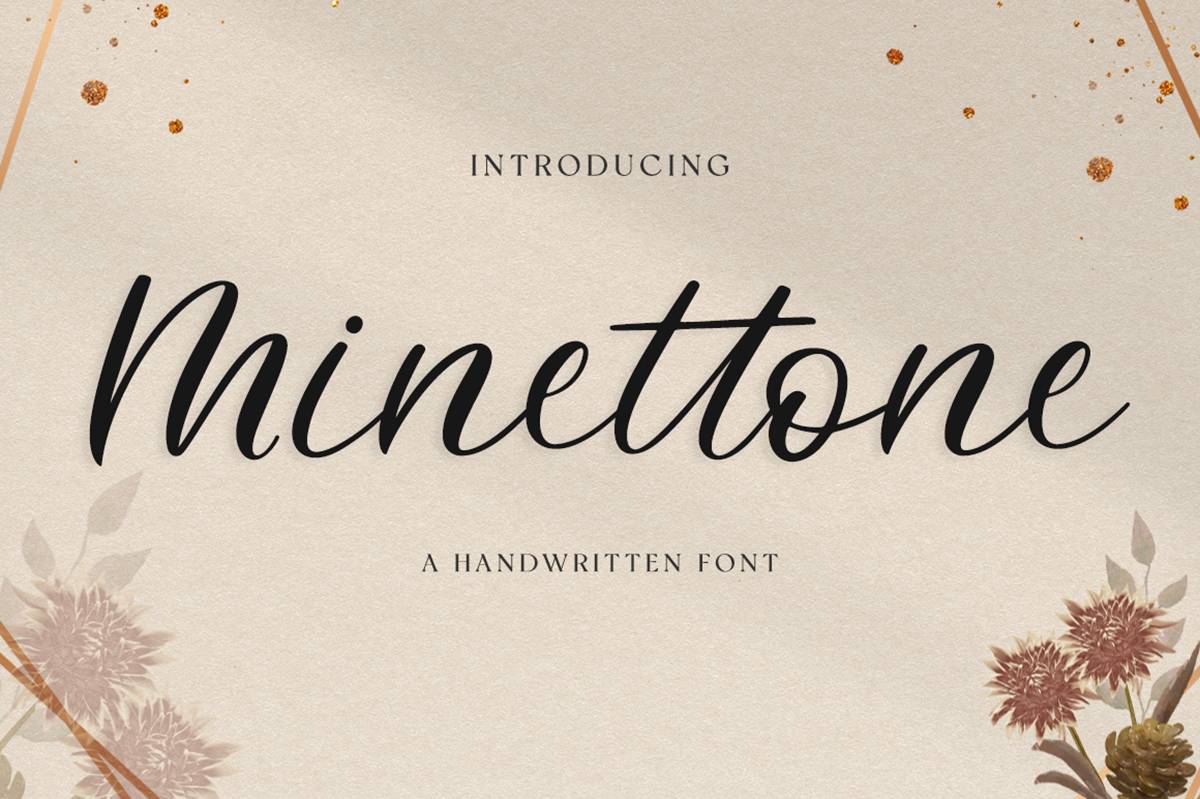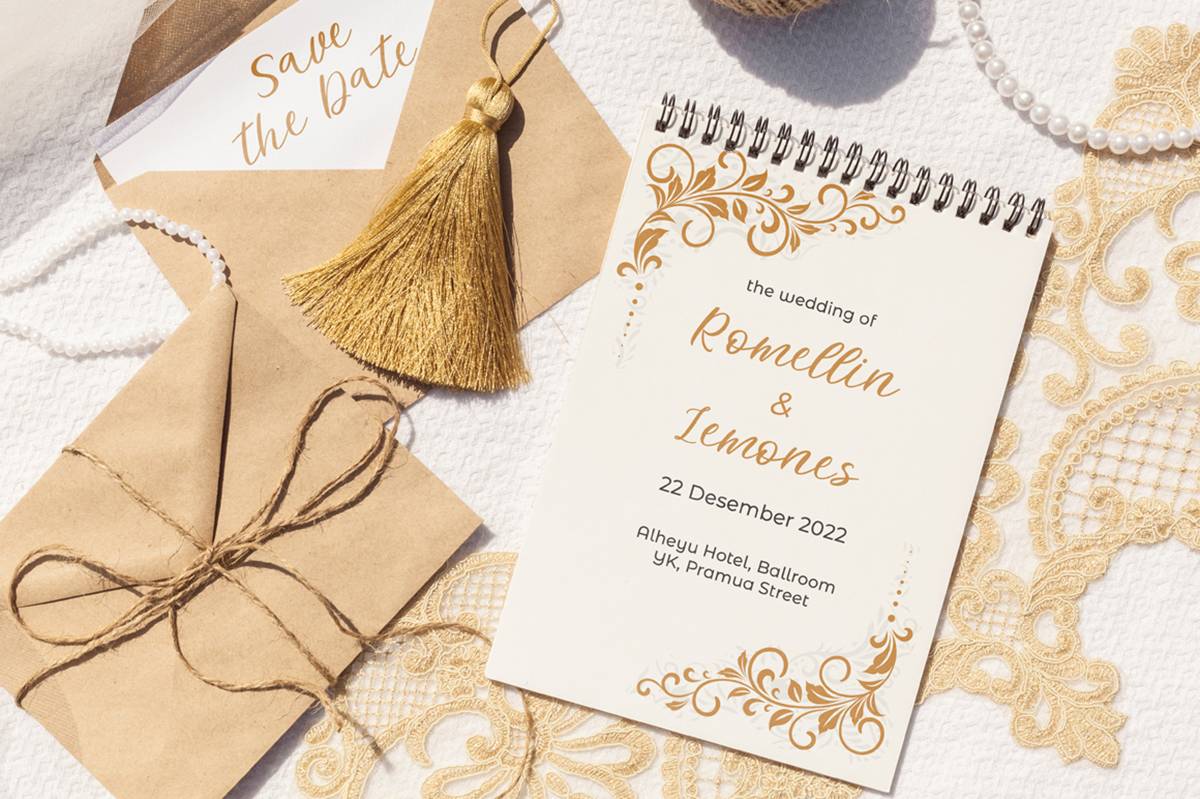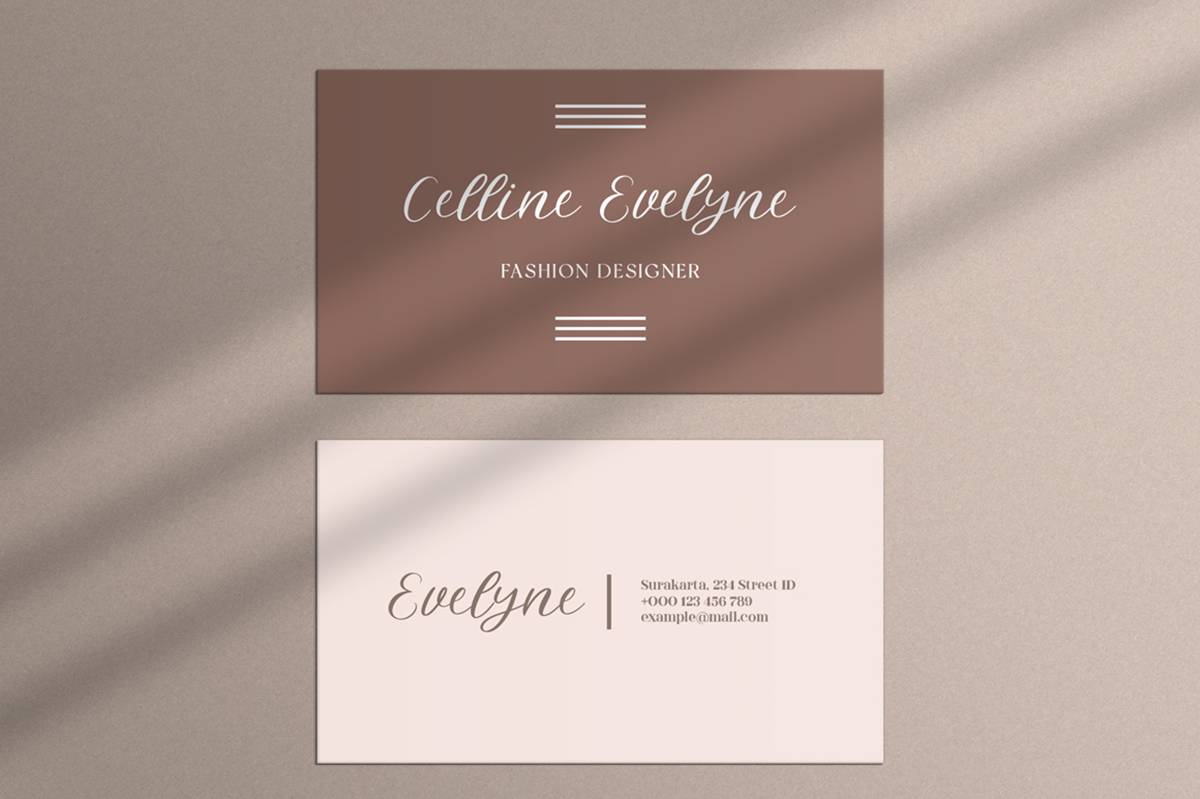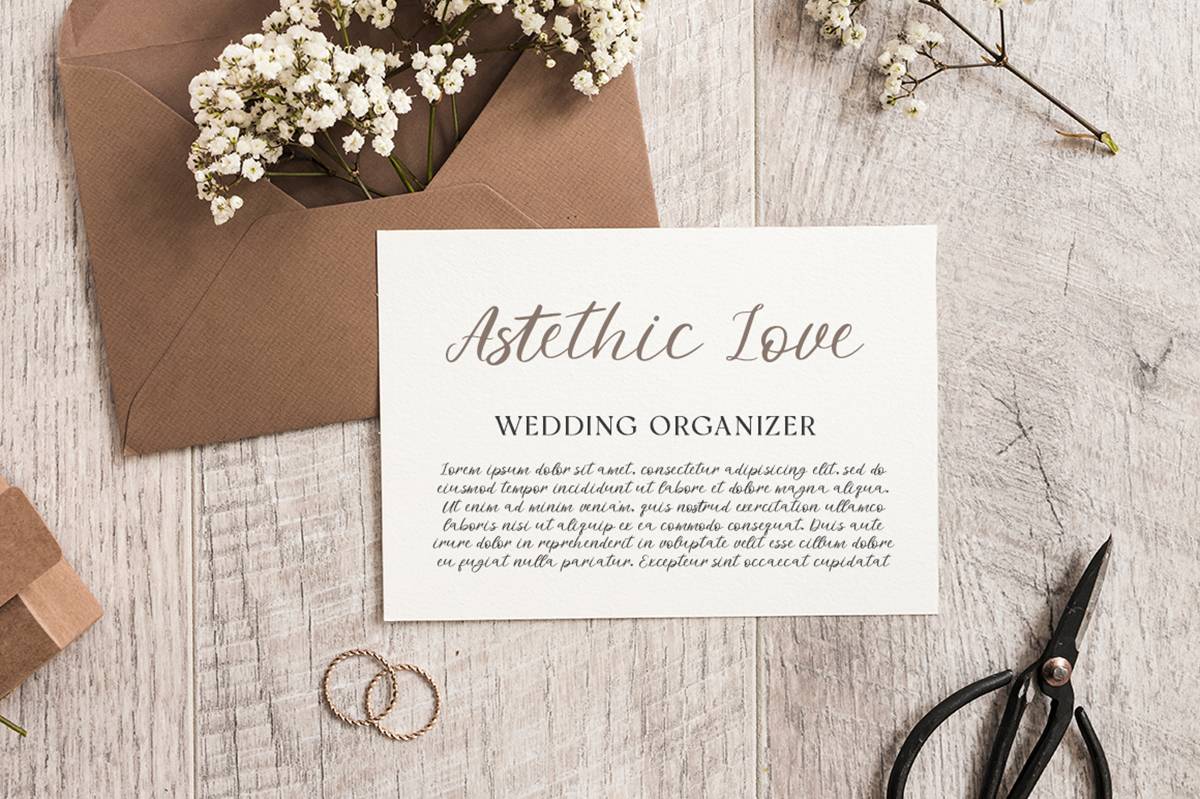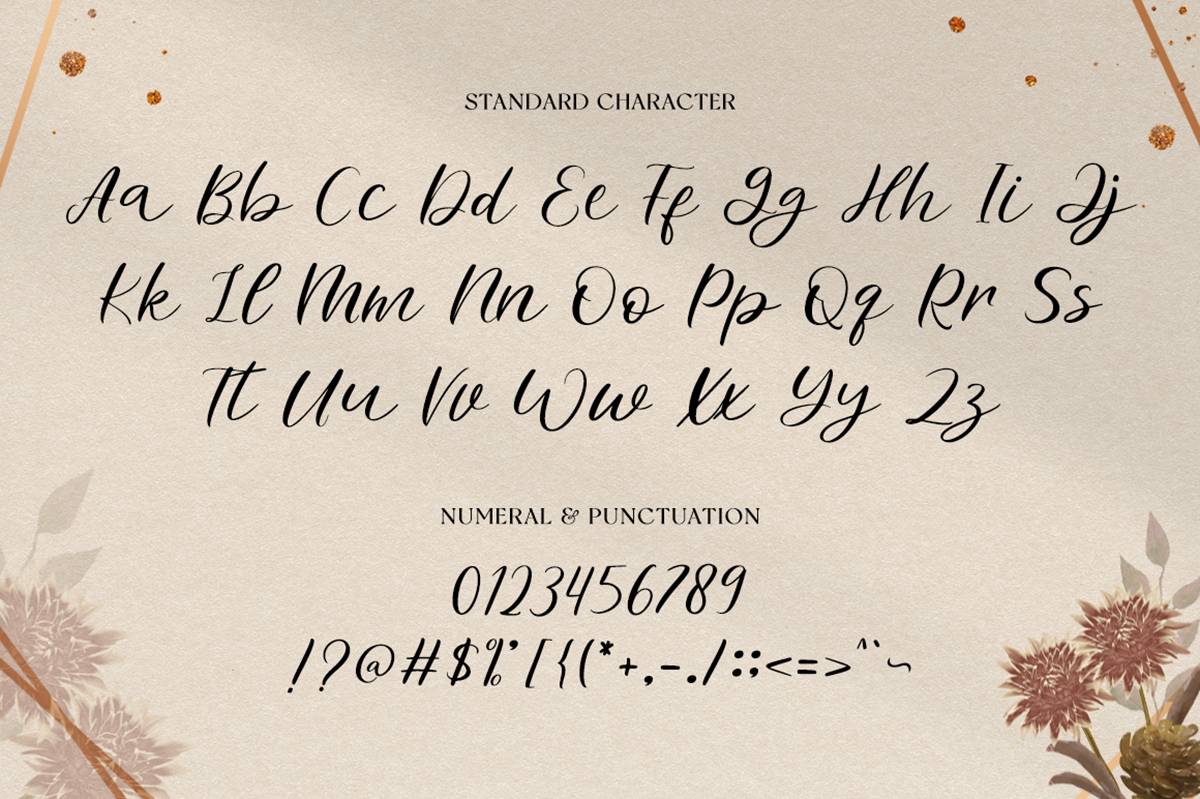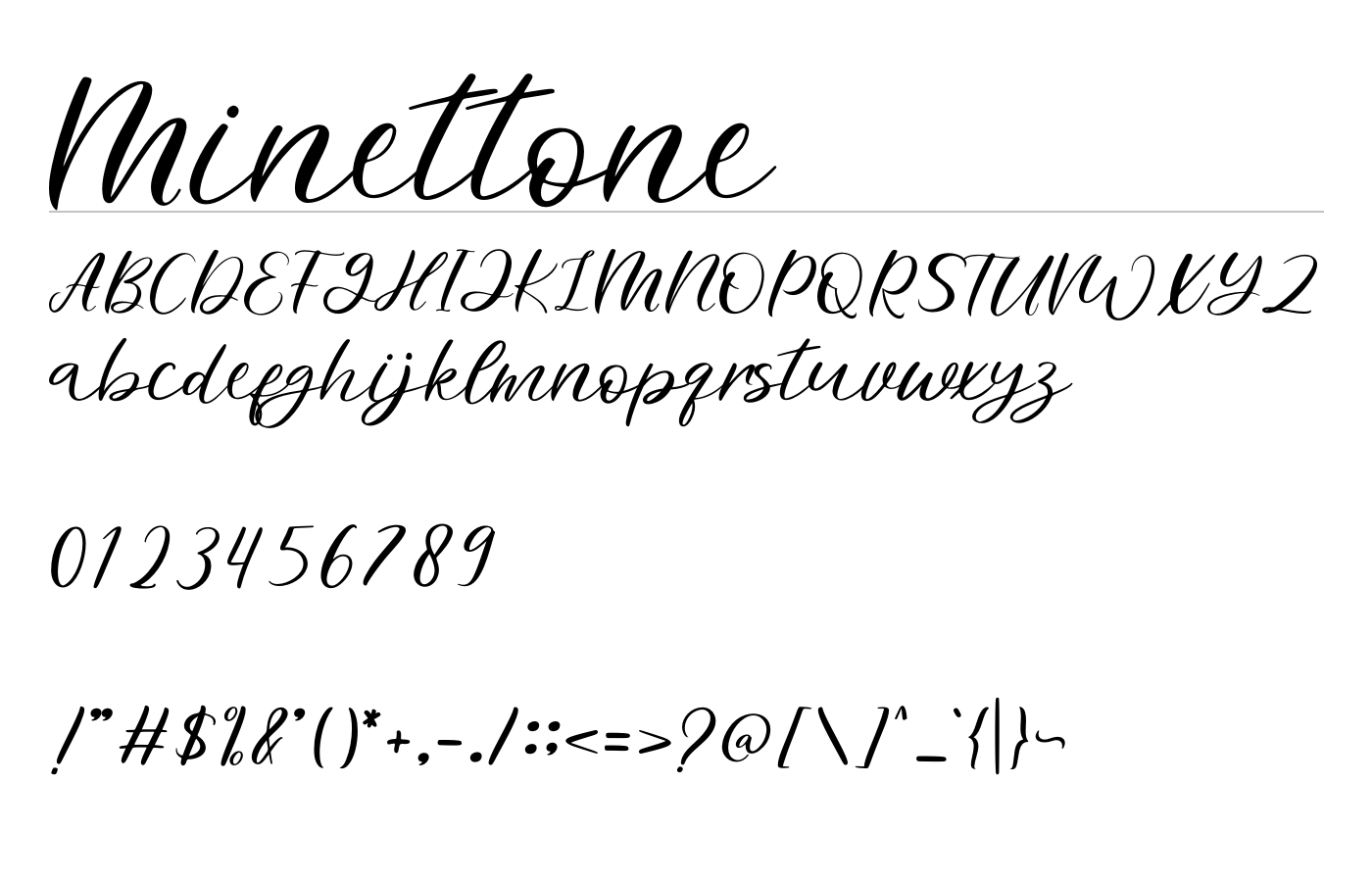
Minettone is an elegant, flowing script font with a modern calligraphic style that features smooth, connected strokes and a light to medium weight. Its delicate and refined letterforms, including distinctive looped capitals and slender numerals, make it perfect for feminine branding, wedding invitations, and stylish editorial projects that require a personal, graceful touch. This font works best in headlines and decorative uses where its airy, handwritten charm can shine.
Minettone Font
About Minettone Font